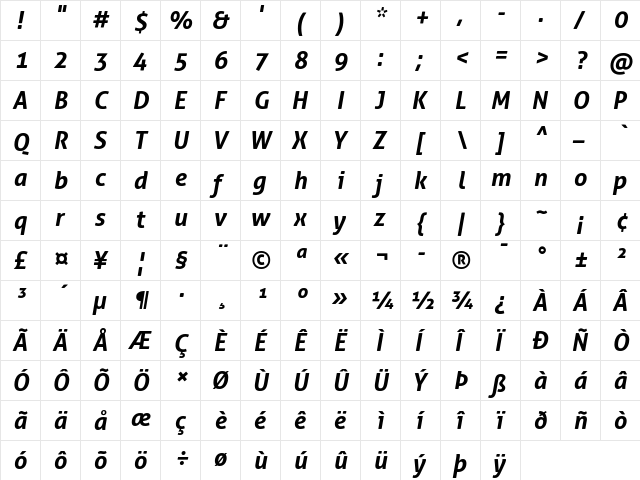
Aller Bold Italic
Design Context for Aller Typeface
Aller is a composed and adaptable typeface that performs quietly and consistently across a wide range of design contexts. The slanted form adds forward momentum and visual energy. Its bold stroke weight gives it real presence on the page.
Pro Tip: Try Aller for annotation and caption copy alongside an upright companion — the contrast in angle creates a dynamic but ordered typographic system.